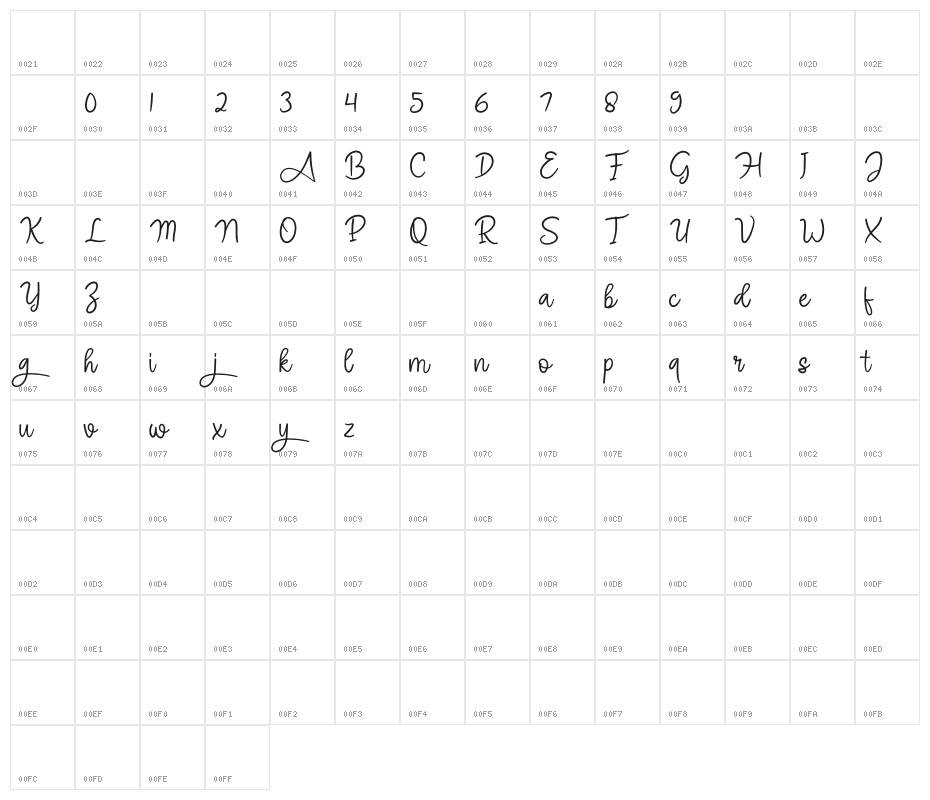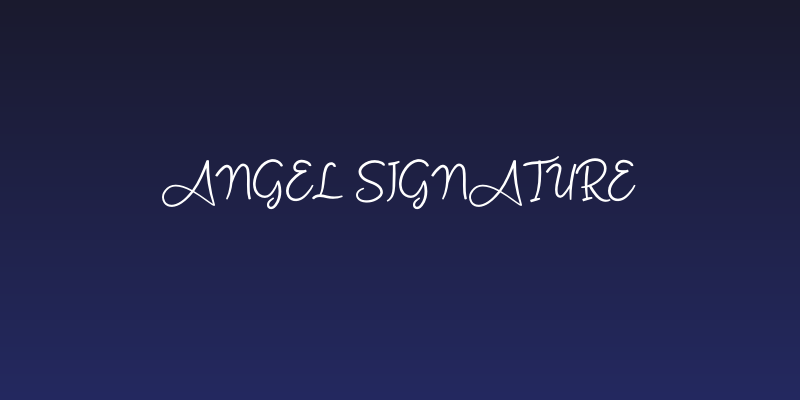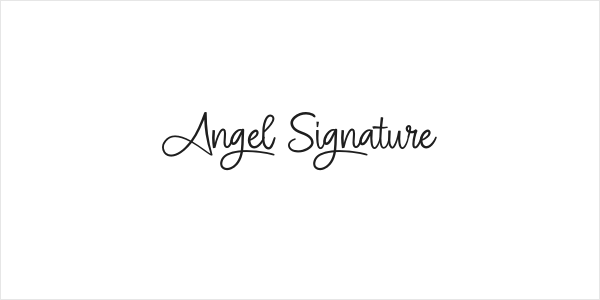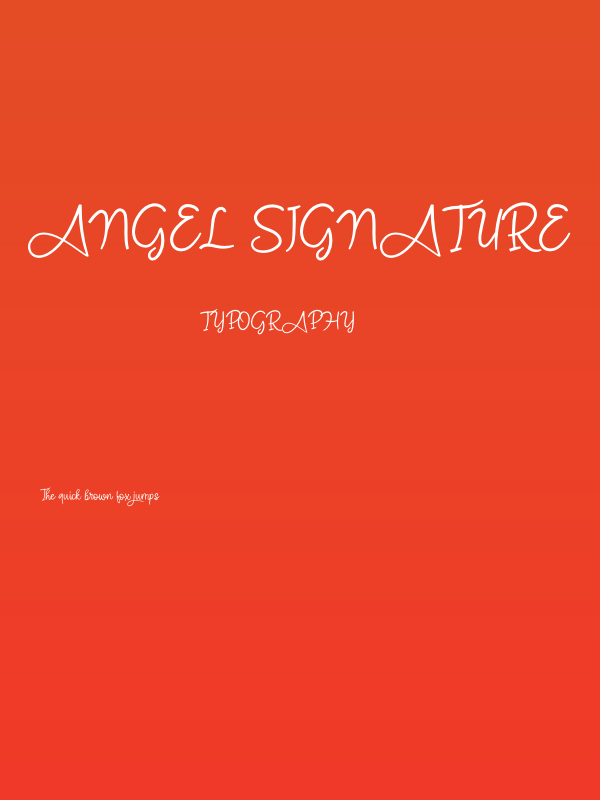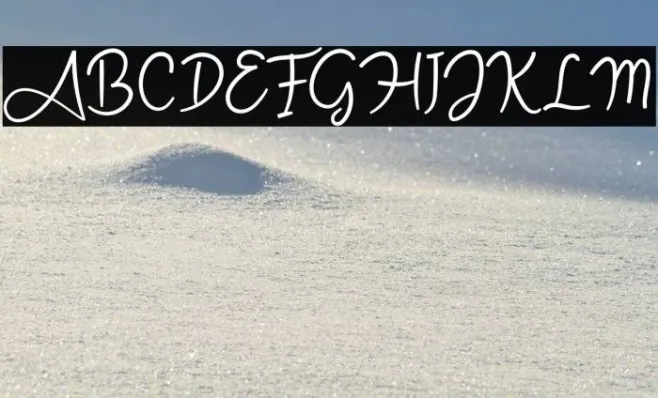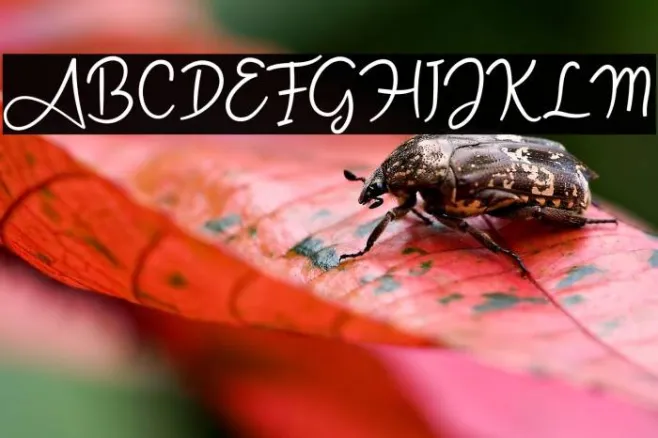
Angel Signature Font
Angel Signature Description
This font features a flowing, cursive style that mimics elegant handwriting. The uppercase letters are tall and graceful, with sweeping curves and loops that give them a sophisticated appearance. The lowercase letters maintain a consistent style, with some characters extending below the baseline, adding to the font's dynamic nature. The numbers are clear and legible, maintaining the same cursive flair. Special characters are integrated seamlessly, ensuring a cohesive look across all glyphs. This font is perfect for projects that require a personal touch, such as invitations, greeting cards, or branding materials.
| Overall Style | Elegant, Handwritten |
| Proposed Projects | Ideal for wedding invitations, personal branding, greeting cards, and elegant stationery. |